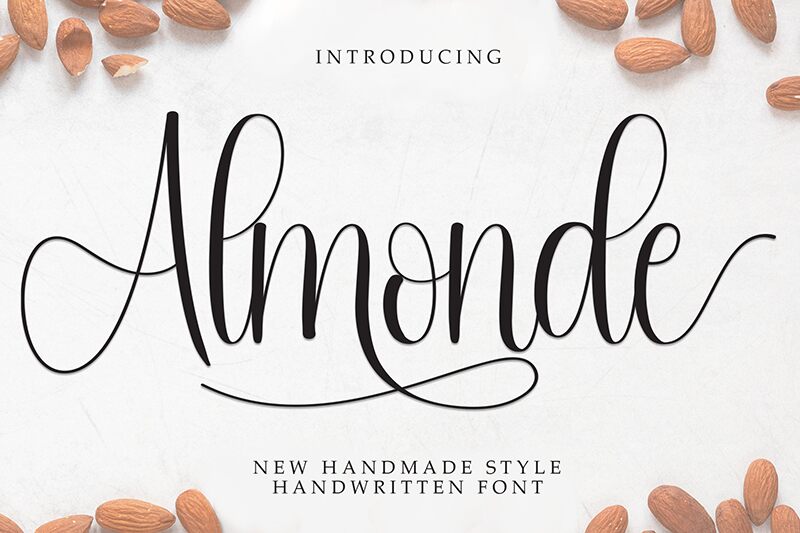
Almonde
Almonde font by Andi Moz is a free calligraphy font that merges an elegant and flowing style with a modern script feel. Its graceful loops and sophisticated charm bring a romantic touch to any text, making it distinct for its condensed appearance.
This typeface’s artistic vibe translates nicely to magazines, journals, art portfolios, formal invitations, wedding cards or websites inspired by romance. The font is also a remarkable choice in branding projects such as product labels & packaging designs of perfumes or skincare products aimed at women’s target audiences.